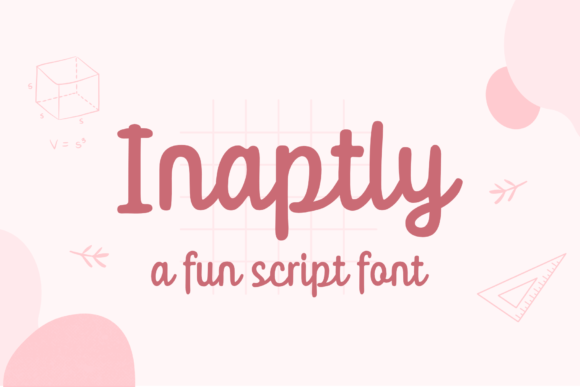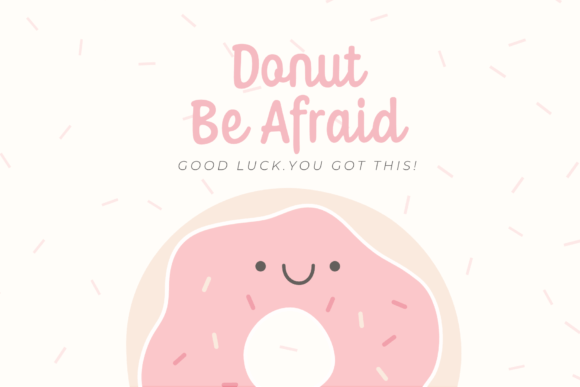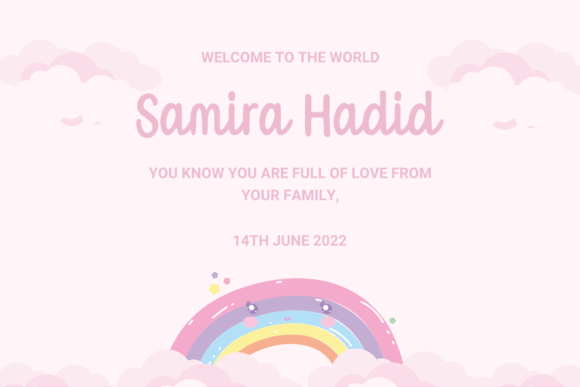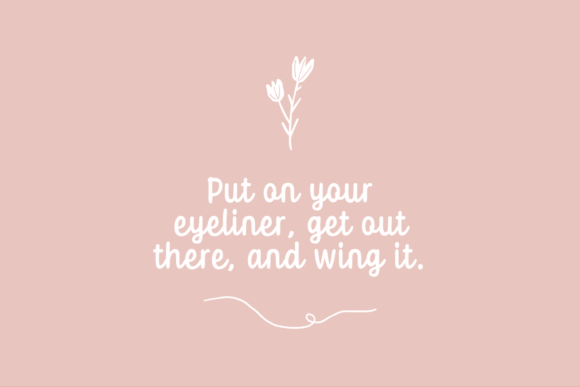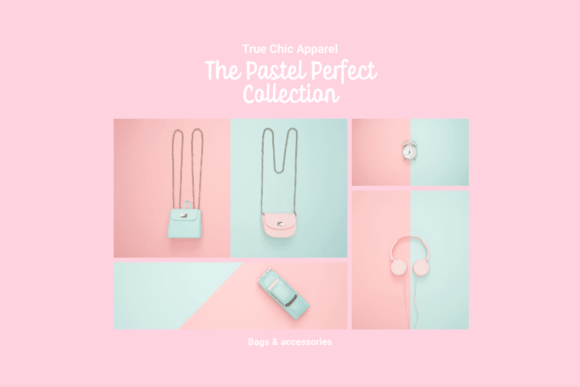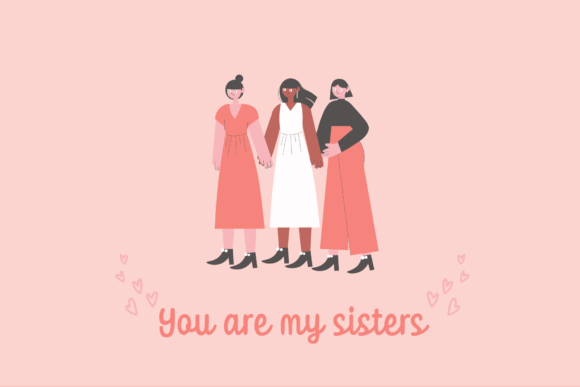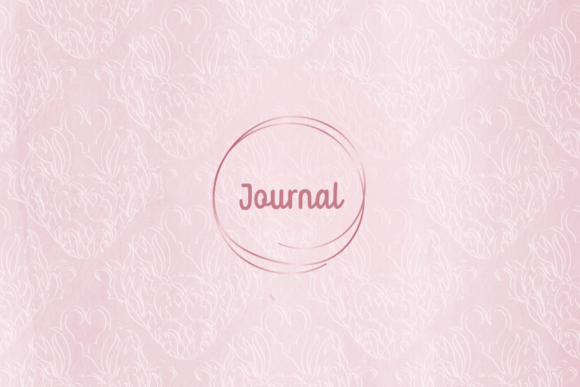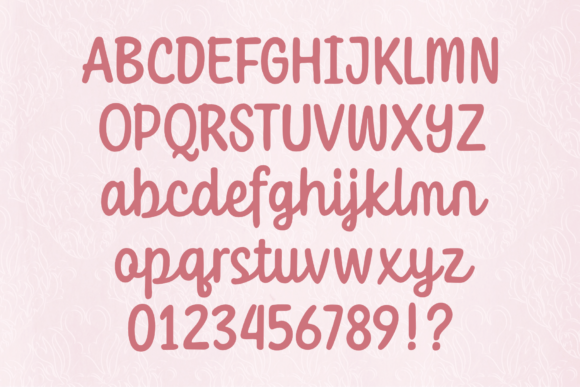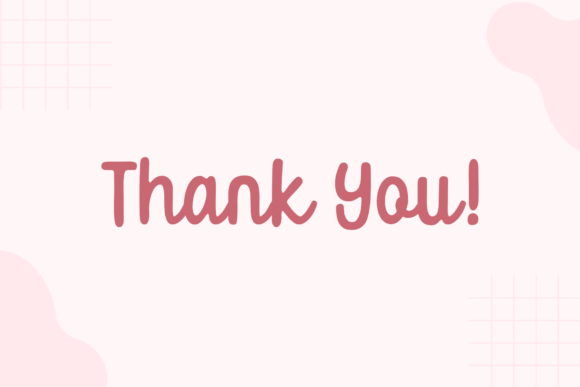
Inaptly Font
“Inaptly” stands out as a fun and remarkably simple handwritten font that effortlessly adds a touch of charm to a diverse array of design projects. With its playful demeanor and uncomplicated style, this font proves to be a versatile and engaging choice for various creative applications.
One of the standout features of “Inaptly” is its suitability for wedding invitations, where it can infuse a sense of whimsy and personalization. The handwritten nature of the font brings an authentic touch to these special occasions, creating an inviting atmosphere for couples and their guests. The simplicity of the font allows for a seamless blend with different wedding themes, making it an ideal choice for a wide range of styles.
Thank you cards become even more heartfelt and personal with the addition of “Inaptly.” Its friendly and approachable design enhances the sincerity of gratitude, turning each card into a warm expression of appreciation. The handwritten touch adds a touch of warmth, making recipients feel the personal connection behind the words.
In quotes and greeting cards, “Inaptly” transforms ordinary text into visually appealing and memorable expressions. Its simplicity works in favor of conveying the intended message clearly, while the handwritten charm adds a layer of authenticity that resonates with readers. Whether it’s inspirational quotes or heartfelt messages, the font lends itself beautifully to diverse sentiments.
For logos and business cards, “Inaptly” brings a unique and friendly identity to brands. Its simplicity makes it easy to read, while the handwritten style adds a touch of personality and approachability. From small businesses to creative ventures, this font has the potential to create a distinct visual identity that stands out in the minds of customers.
Beyond these applications, “Inaptly” finds its place in a myriad of design contexts, from casual social media posts to creative crafts. Its adaptability and simplicity make it a reliable choice for designers seeking a handwritten font that effortlessly blends with various themes and purposes.
In essence, “Inaptly” is not just a font; it’s a creative tool that brings simplicity and charm to your projects. Whether you’re designing for personal events or business endeavors, this font adds a delightful handwritten touch that captivates and leaves a lasting impression. Explore the playful world of “Inaptly” and let its simplicity elevate the impact of your creative expressions.